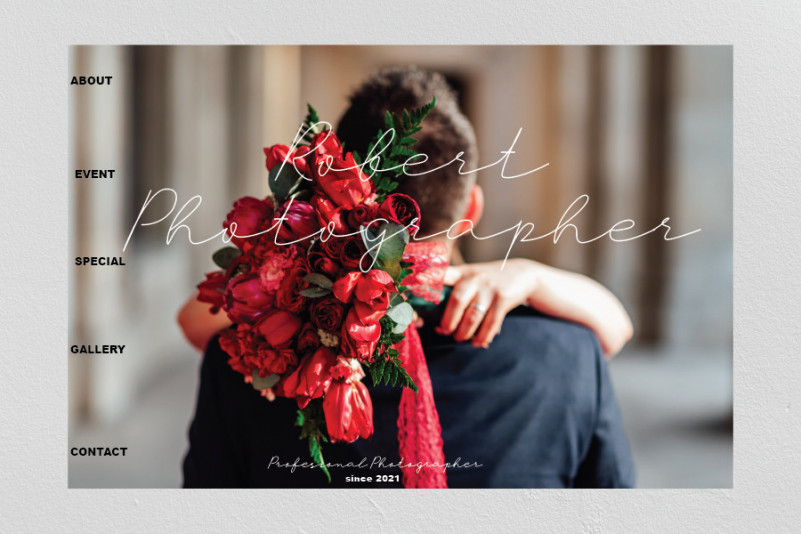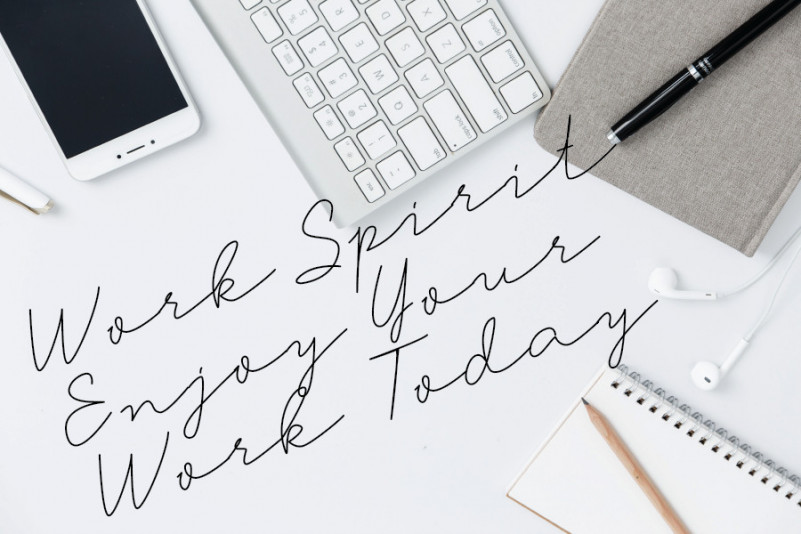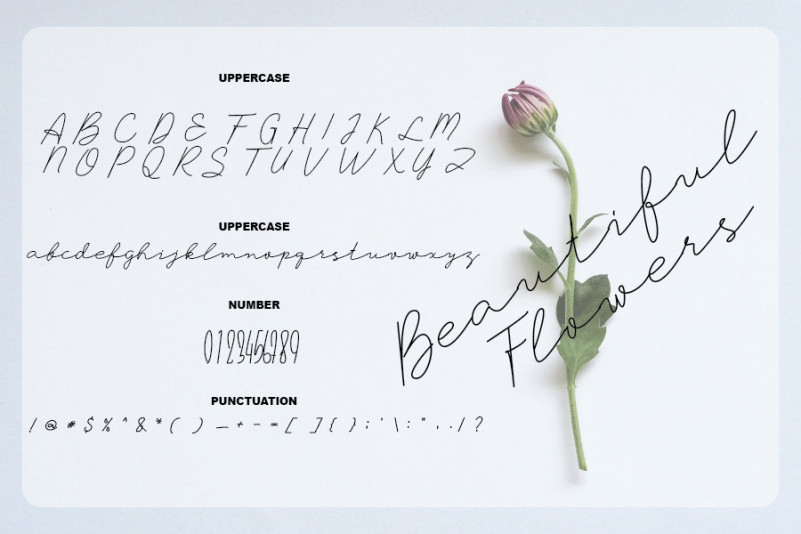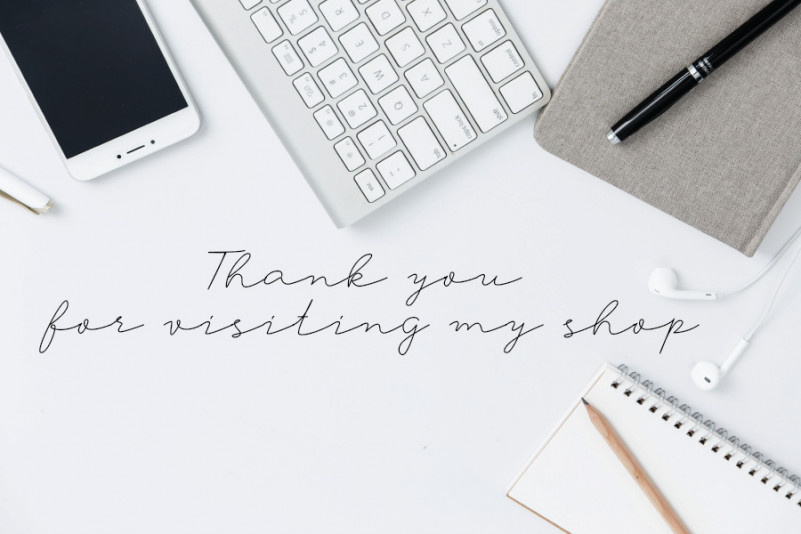
Timberlye Font
Timberlye Handwritten Font
This font is a well balanced, refined script font that emanates sophistication and elegance. Its stylish alternates and ligatures make this font the perfect match for any project.